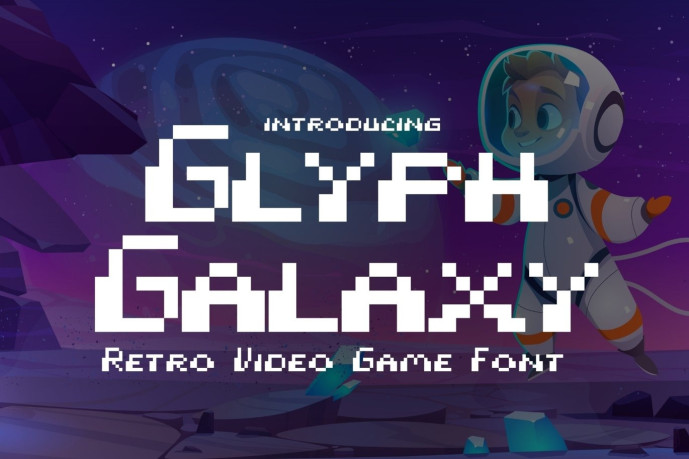
Glyph Galaxy Font
Designer: epdesigns
Glyph Galaxy Font is a retro-inspired 8-bit pixel font that captures the magic of classic video games and digital nostalgia. Designed with crisp, square shapes and pixel-perfect precision, this typeface brings the charm of old-school arcade screens to modern creative projects.
Each character is built on a structured pixel grid, offering a clean and nostalgic aesthetic that looks like it came straight from vintage game consoles. Its balanced design ensures readability while retaining the iconic low-resolution look that defined an era.Perfect for video game design, posters, user interfaces, branding, YouTube thumbnails, social media graphics, and creative projects, Glyph Galaxy adds a playful digital touch wherever it’s used. Whether you’re creating a retro game, designing pixel art visuals, or crafting nostalgic branding, this font instantly evokes a retro vibe.